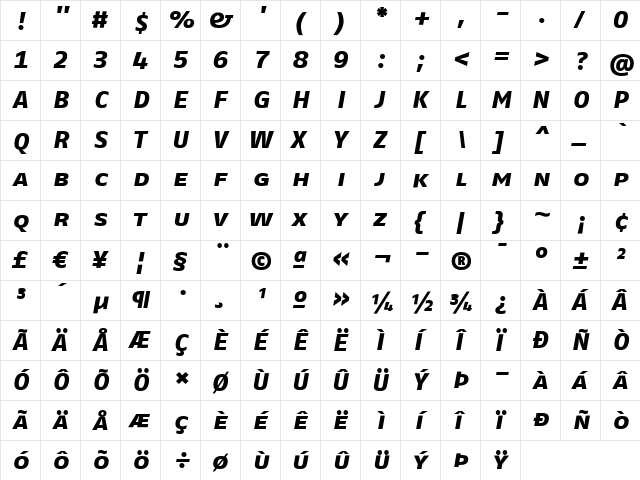
FagoExTf ItalicExtrabold Font Preview
Design Context for FagoExTf Typeface
FagoExTf takes a measured approach to typography — its balanced proportions and neutral character make it a reliable workhorse for both digital and print work. The slanted form adds forward momentum and visual energy. The heavy weight commands attention and anchors typographic hierarchies.